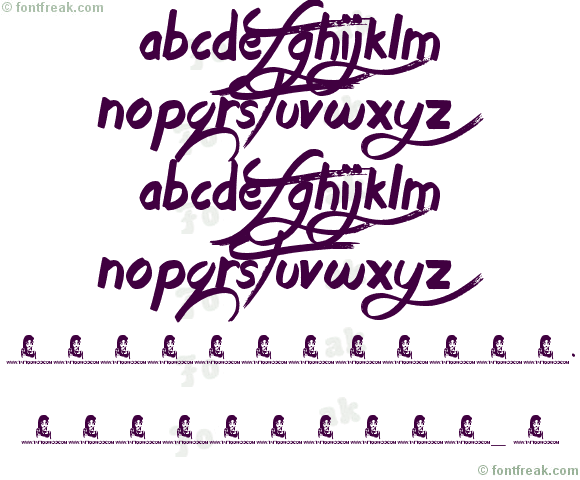
Age to Age
The "Age to Age" font, designed by Jonathan S. Harris, is a decorative script typeface that brings a unique flair to any project. With its flowing, cursive style, this font captures the essence of handwritten artistry while maintaining a modern design aesthetic. The strokes display a medium weight with varying contrast, creating an engaging visual rhythm. The graceful loops and swashes add a touch of elegance, making it stand out in any text.
This font excels in various applications. It is particularly suited for wedding invitations, where its romantic style can enhance the overall theme. Additionally, it works beautifully for greeting cards, adding a personal touch that resonates with recipients. "Age to Age" can also elevate branding for small businesses, such as cafes or boutique shops, by providing a distinct personality to menus and promotional materials. Moreover, it is ideal for creative projects like posters or album covers, where a unique typography choice can capture attention and convey a specific mood.
Targeting graphic designers, small business owners, and content creators, "Age to Age" offers versatility and charm. Its aesthetic appeal is perfect for anyone looking to infuse their work with a sense of warmth and character.
What sets the "Age to Age" font apart is its ability to blend artistry with readability. The careful balance of decorative elements and functional design allows it to shine in both digital and print formats. Whether you’re crafting a heartfelt message or a striking visual statement, this font is a standout choice. Don’t miss out on the "Age to Age font free download" to explore its potential in your next project.